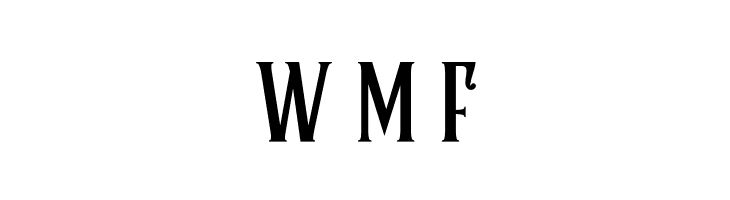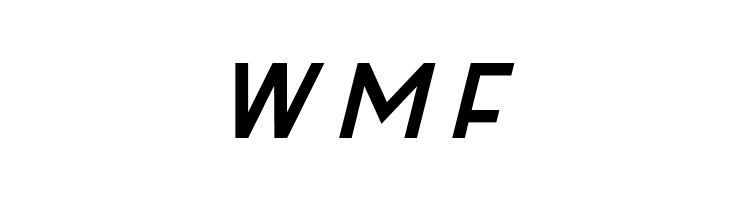
A bold, modern typeface with clean lines and geometric shapes.
A clean, modern sans-serif font with excellent readability and balanced design.
A bold, sans-serif font with a strong and modern appearance.
A modern, light sans-serif font with clean lines and balanced spacing.
A refined serif font with thin, elegant strokes and classic proportions.
A refined serif typeface with balanced proportions and elegant details.
A bold serif typeface with strong, traditional character and pronounced serifs.
A classic serif font with semi-bold weight and moderate contrast, ideal for formal and readable text.
A bold, geometric font ideal for impactful headlines.
A modern, clean sans-serif font with excellent readability and balance.
A clean, modern sans-serif typeface with semi-bold weight and excellent readability.
A modern, geometric sans-serif font with clean lines and balanced spacing.
A clean, modern typeface with consistent stroke width and excellent readability.
A clean, modern sans-serif font with excellent readability and versatility.
A clean, monospaced font ideal for coding with consistent stroke thickness.
A bold, oblique sans-serif font with a modern and dynamic style.
A modern, medium-weight oblique sans-serif font with a dynamic style.
A clean, modern sans-serif typeface with balanced proportions and clear readability.
A bold, oblique font with a modern and dynamic style.
A bold, modern sans-serif typeface with strong, uniform strokes.